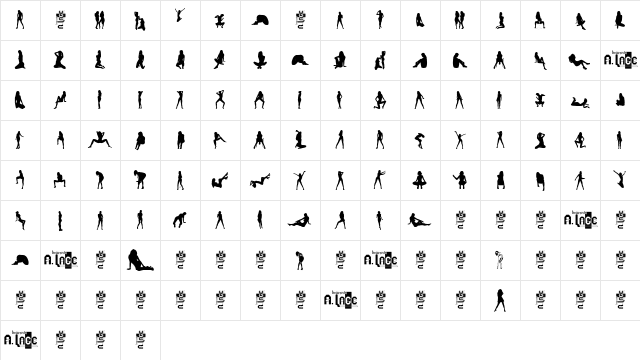
SEXY SPANISH ERASMUS GIRLS V.2.0 Regular
Design Context for SEXY SPANISH ERASMUS GIRLS V.2.0 Typeface
SEXY SPANISH ERASMUS GIRLS V.2.0 is a composed and adaptable typeface that performs quietly and consistently across a wide range of design contexts.